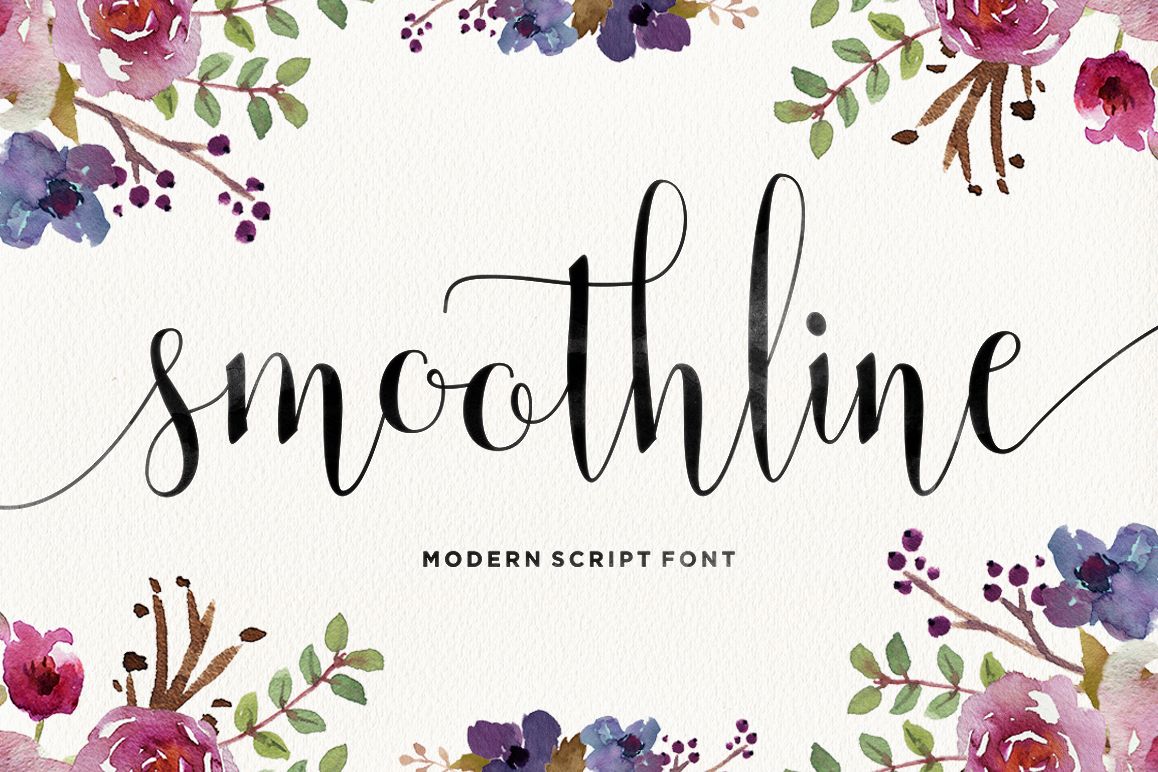
Hi, Introducing the latest styles Smoothline Script with the kind of modern hand scratches, I hope you are interested in this font, if you want to use for your work this font can be used easily and simply because there are a lot of features in it to contain a complete set of letters lower and uppercase letters, assorted punctuation, numbers, and multilingual support. font also contains several ligatures and alternate style Stylistic